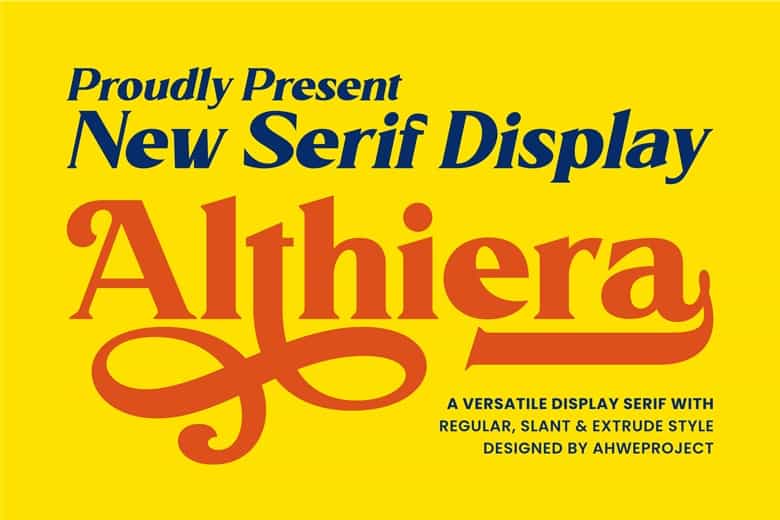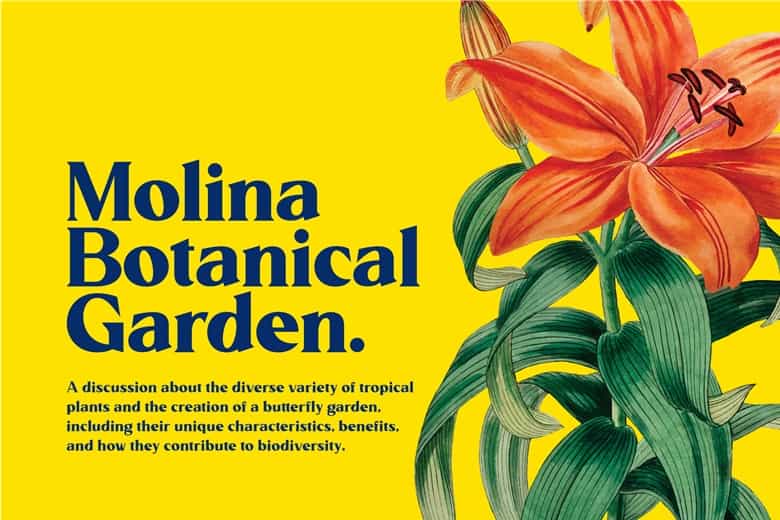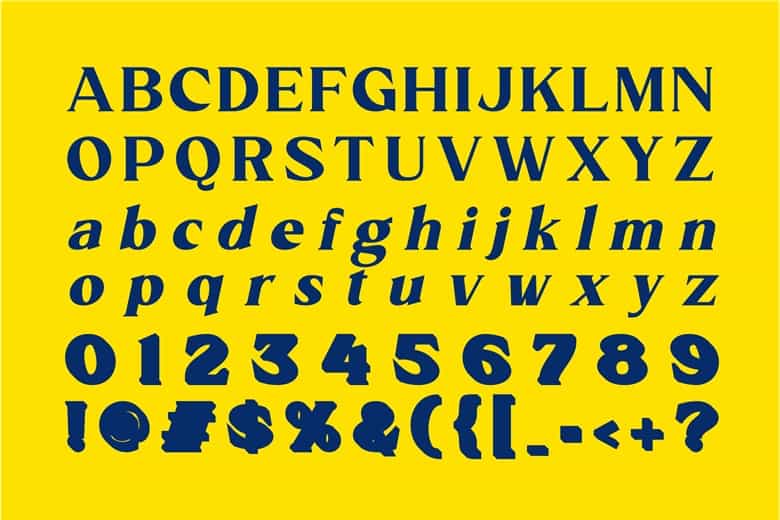
The Althiera is a popular serif display font made for statement-making. flawlessly designed using strong, bold lines and graceful curves, this font is intended for anyone building eye-catching headlines, brand projects and logos. Due to its modern look and variety, Althiera provides different options such as Regular, Slant and Extrude which help you make your designs both unique and eye-catching.